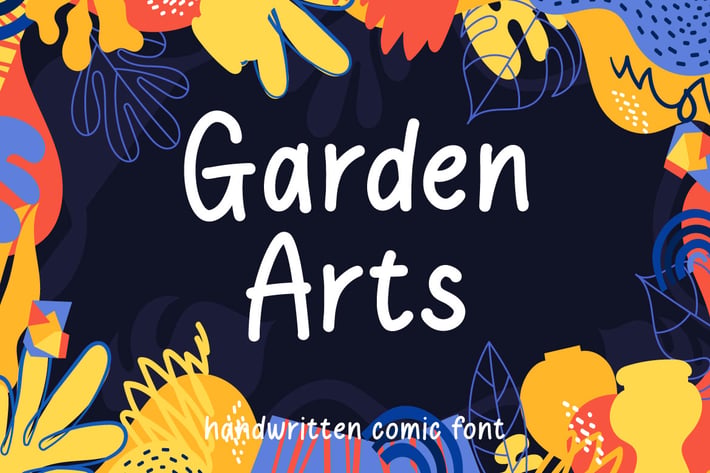
Garden Arts - Handwritten Comic Font
Hello! Garden Arts is a minimalist handwritten font.
Garden Arts can be used in any works such as flyer, book title, advertisement, social media content, logo and many more.